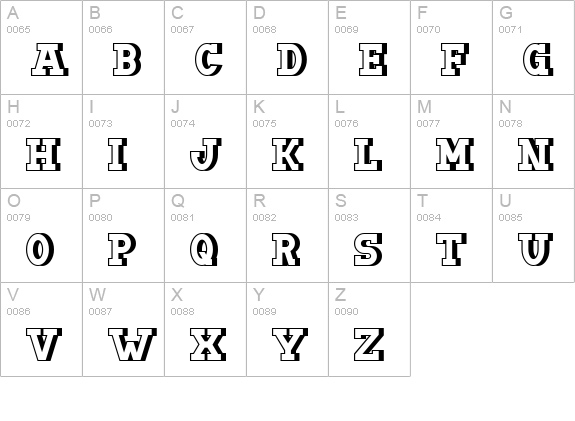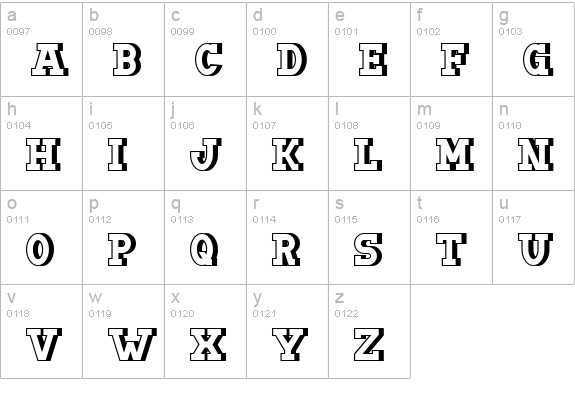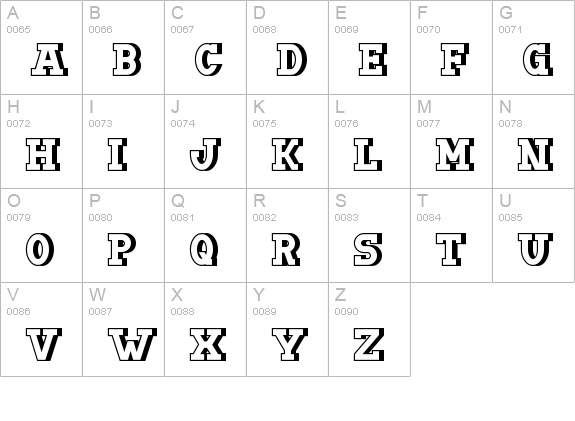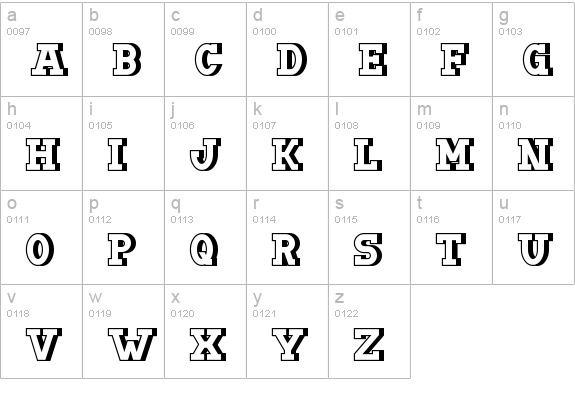
DoergonBackshift is a captivating and versatile font that adds a touch of elegance and sophistication to any design project. With its unique blend of modernity and classic charm, this font is sure to make a lasting impression. Featuring graceful curves and stylish letterforms, DoergonBackshift strikes the perfect balance between legibility and creativity. Its sleek lines and intricate details make it ideal for a wide range of applications, from logos and branding materials to posters, invitations, and more. One of the most remarkable features of DoergonBackshift is that it is absolutely free. This means that you can download and use this stunning font without any cost or restrictions. It is freely available to download at FontsMarket.com, a trusted source for high-quality and professionally designed fonts. Whether you are a professional designer or simply someone who appreciates the beauty of typography, DoergonBackshift is a must-have addition to your font collection. Its versatility, elegance, and the fact that it is free make it an invaluable resource for bringing your creative visions to life. So why wait? Download DoergonBackshift today and let your designs shine with its timeless allure.